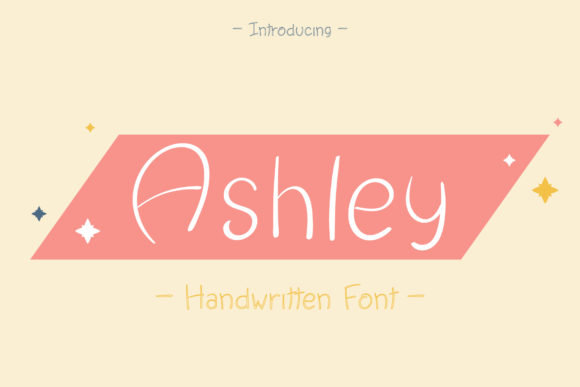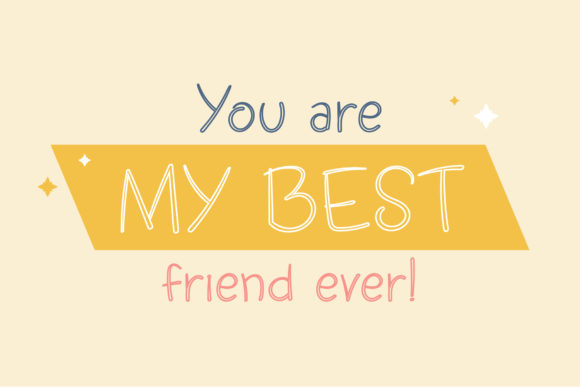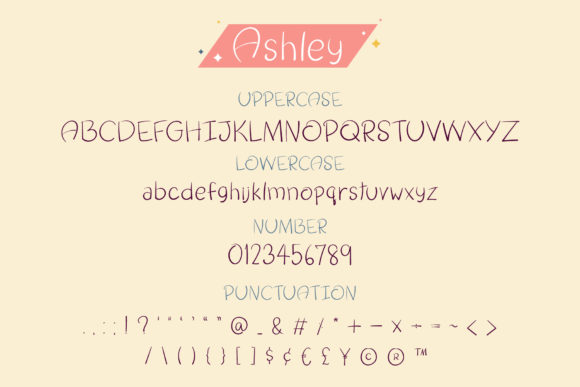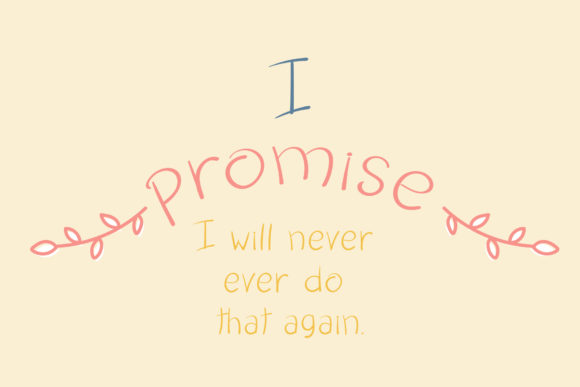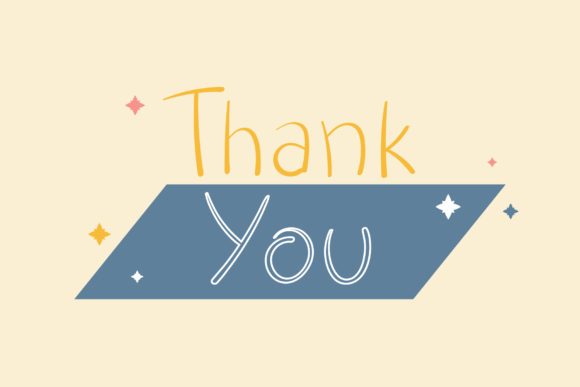
Ashley Font
About Ashley Font
Ashley is a simple, joyful handwritten font. Its casual charm makes it appear wonderfully down-to-earth, readable and, ultimately, incredibly
versatile. Ashley will look outstanding in any context, whether it’s being used on busy backgrounds or as a standalone headline!